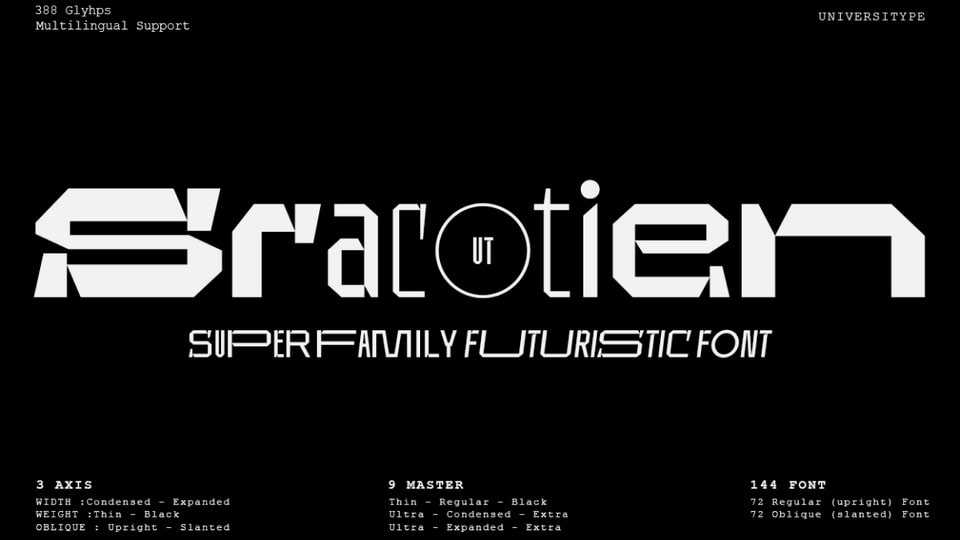
Download UT Sracotien font, a versatile superfamily typeface, offering a unique blend of aesthetics and practicality that can elevate any project to new heights.
Designer: Universitype Foundry